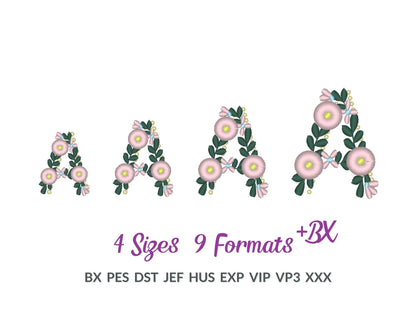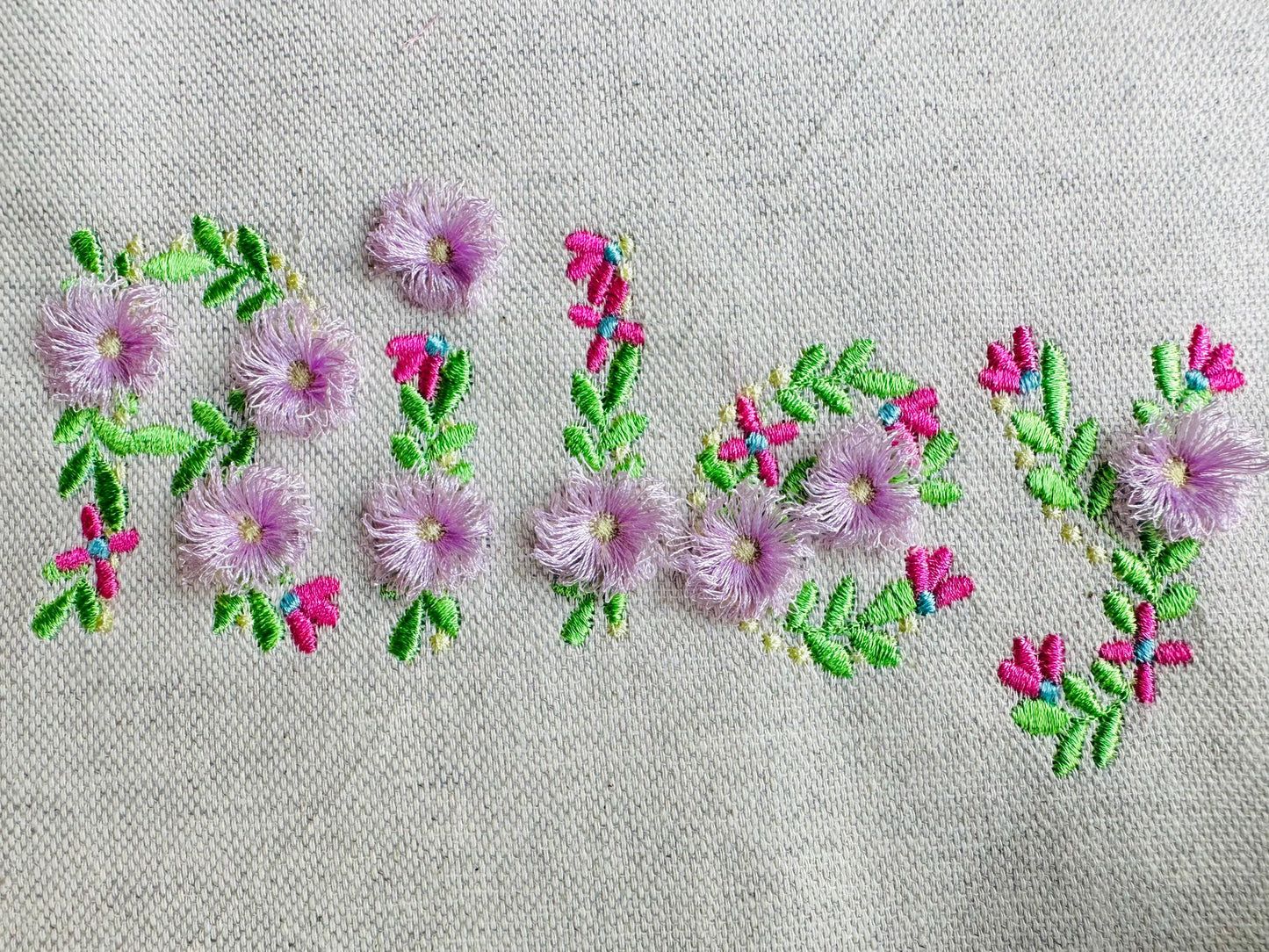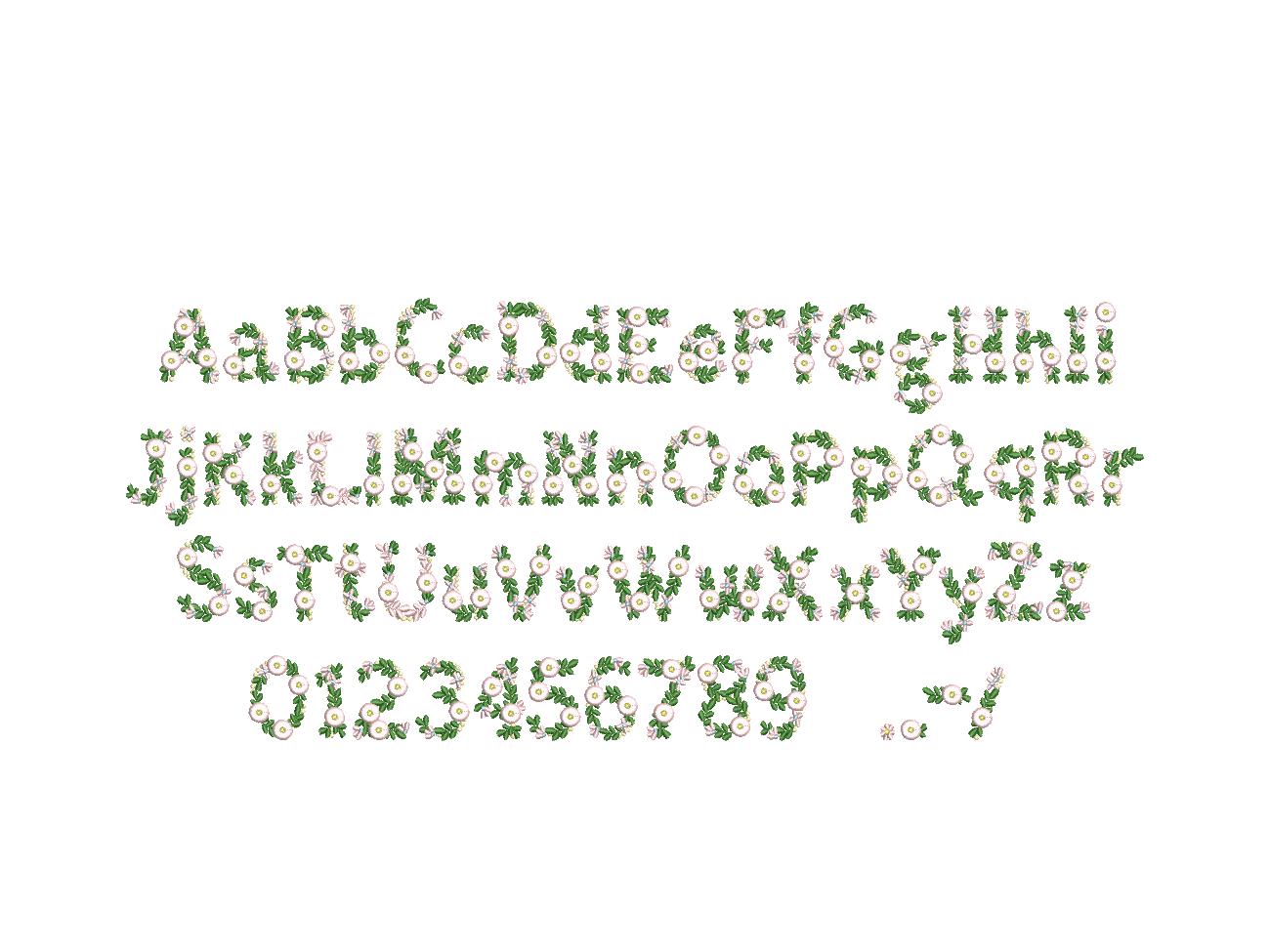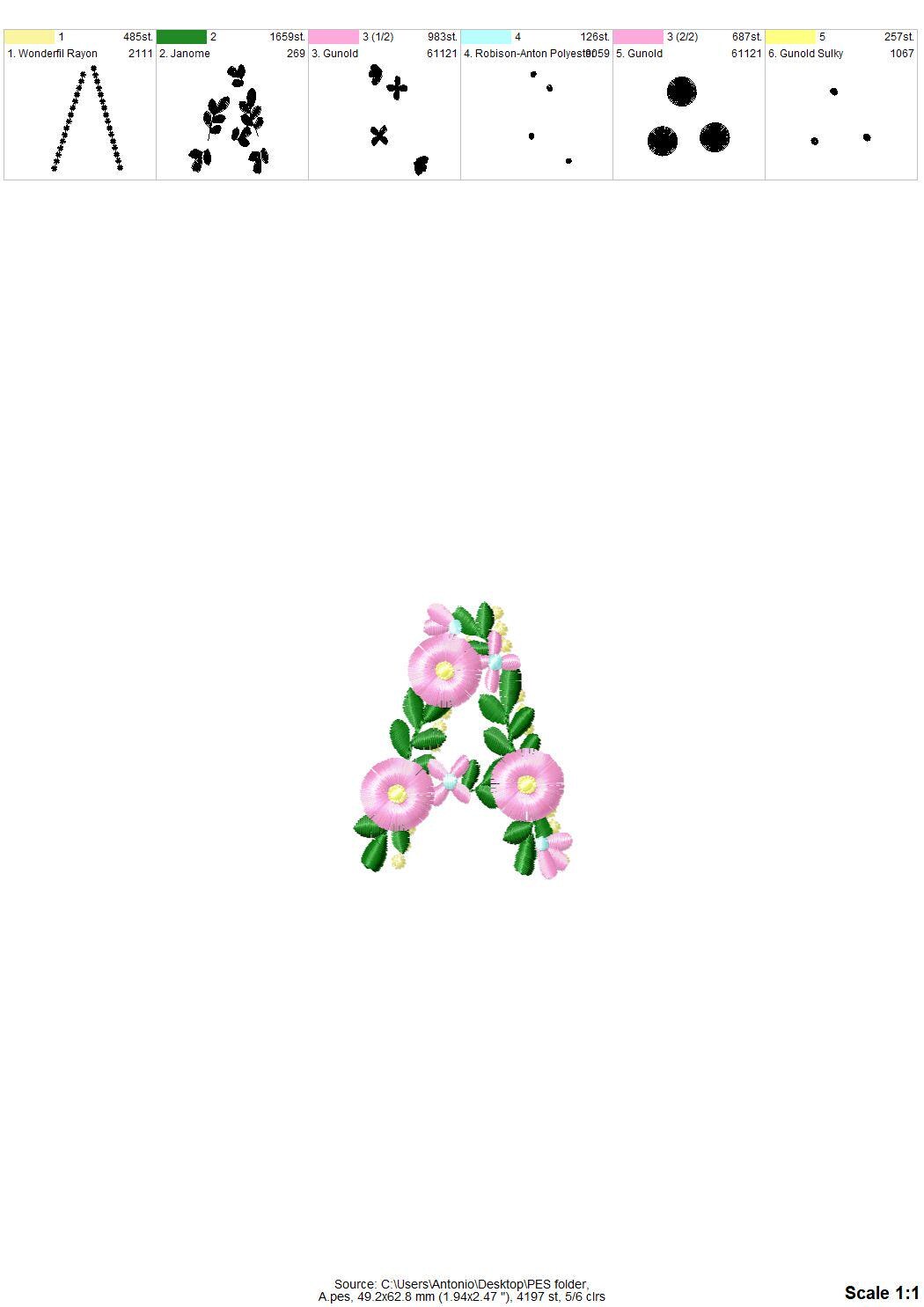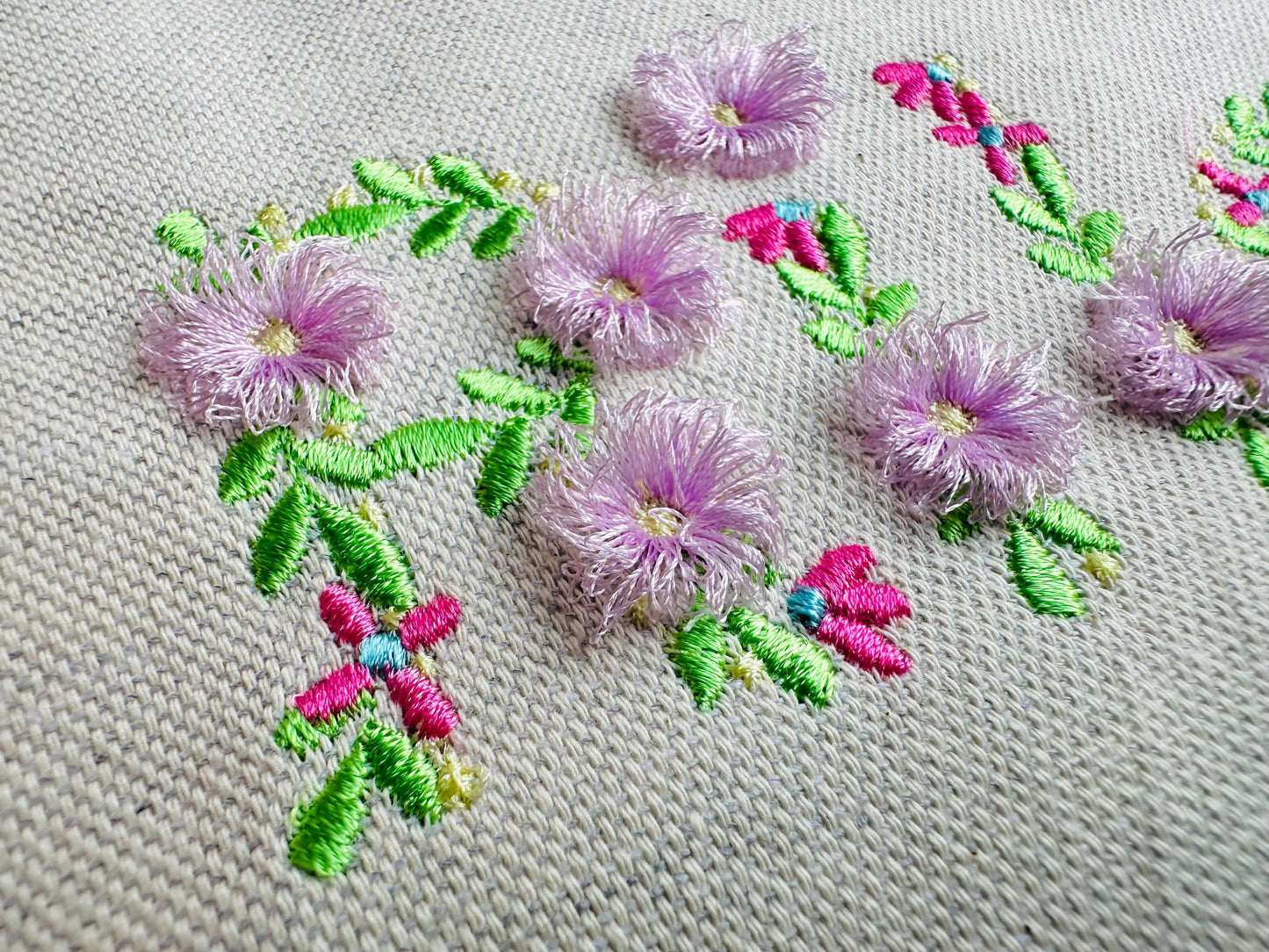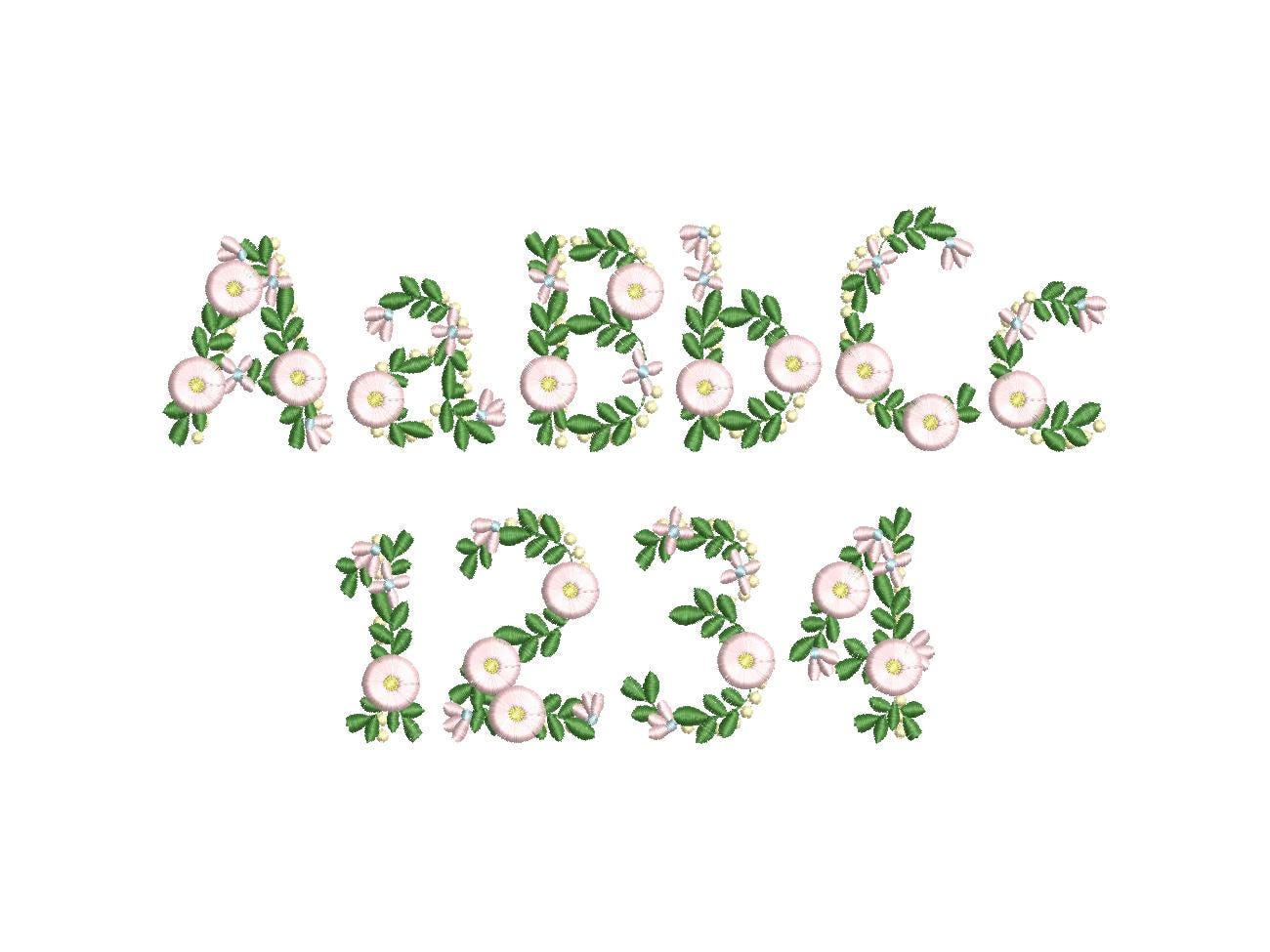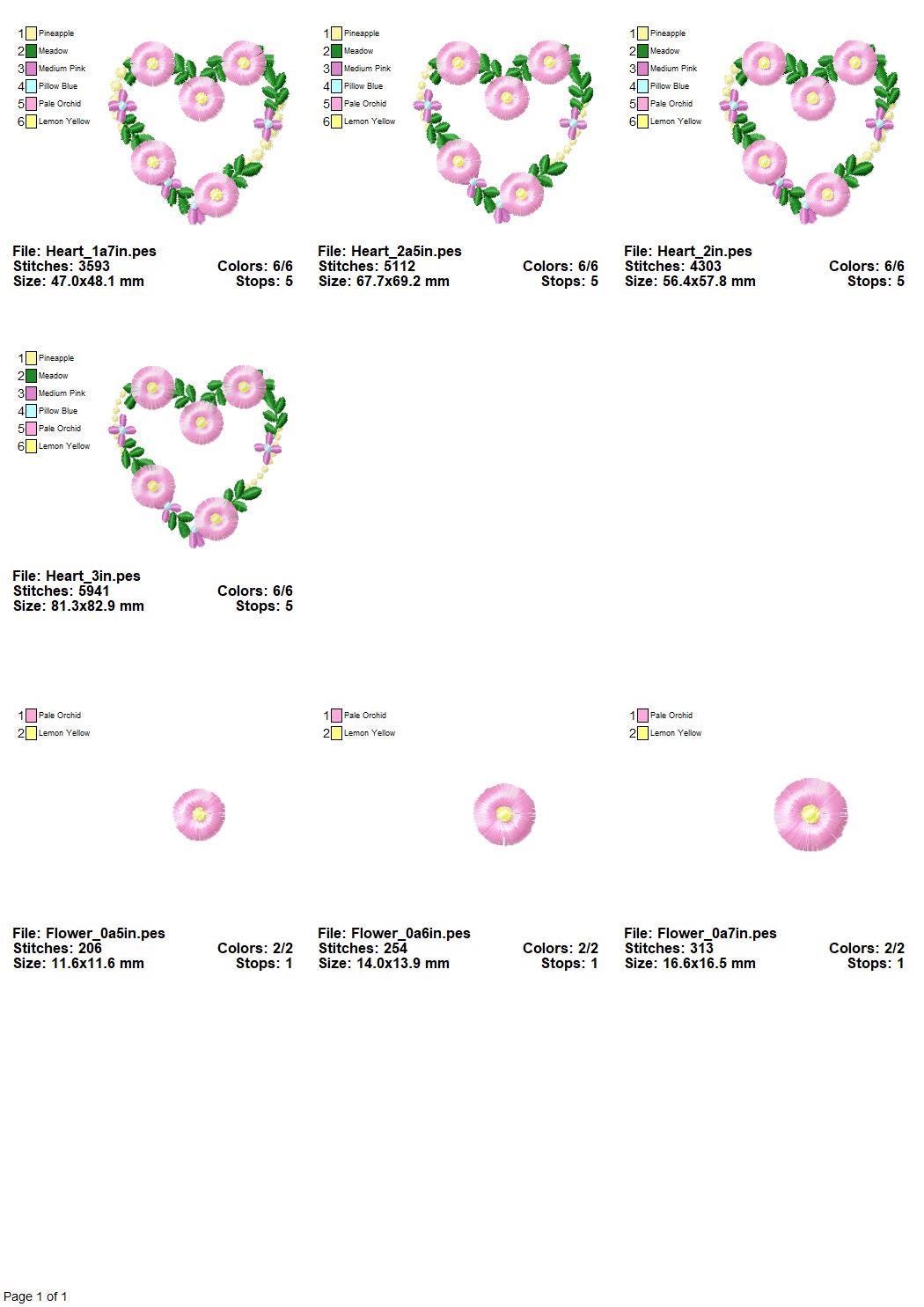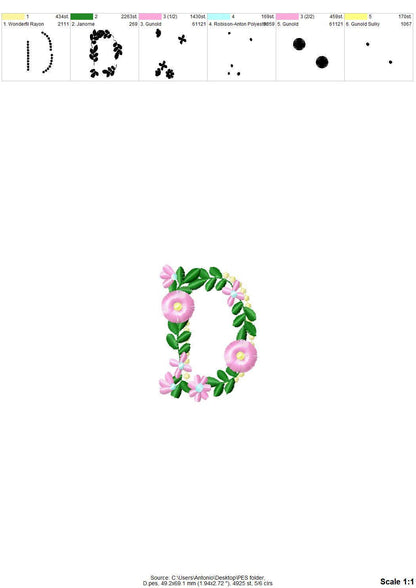
Fringed Mini Daisy Floral Font
Or click to open the linkA fringed mini daisy font with fluffy flowers on the letters, plus a heart and a flower add-on. Sweet for names on kids' clothes and gifts.
The daisies fluff up, and a special seam keeps the fringe safe to wash. Uppercase and lowercase letters, numbers and punctuation in 1.7, 2, 2.5 and 3 inches; the heart in the same sizes and the flower in 0.5, 0.6 and 0.7 inches.
- Fringed daisy font
- Uppercase, lowercase, numbers, 1.7 to 3 in
- Heart and flower add-ons